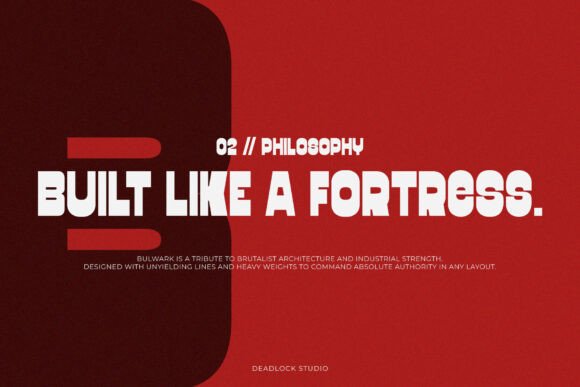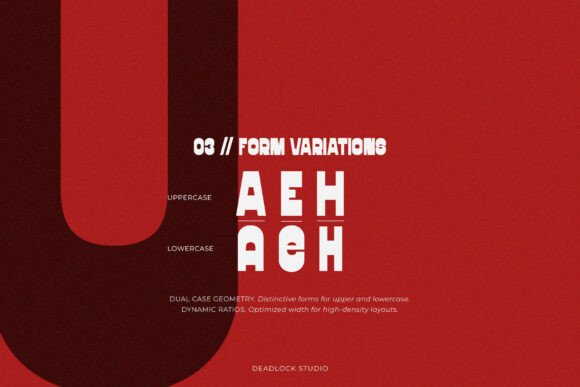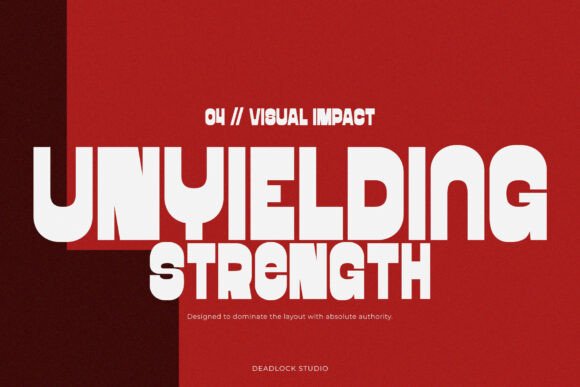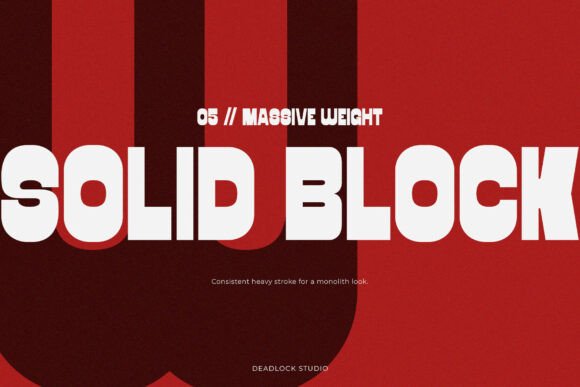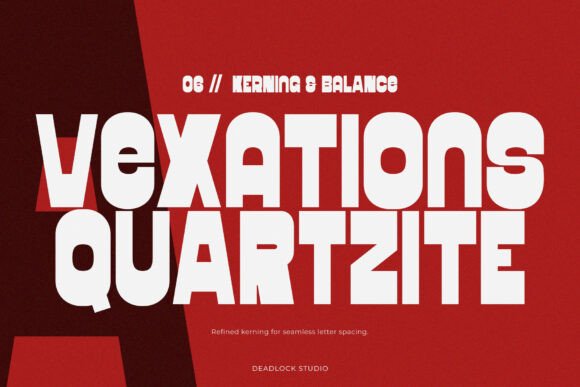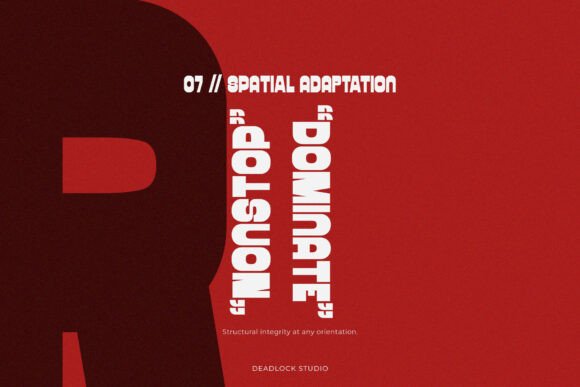
BULWARK Font: A Monolithic Typeface for Maximum Impact
In the world of typography, fonts play a crucial role in conveying messages, evoking emotions, and creating visual identities. For designers and crafters seeking a bold and industrial look, the BULWARK font is an excellent choice. Inspired by brutalist architecture, BULWARK is a monolithic all-caps typeface built for maximum impact. Its solid, unyielding presence makes it perfect for headlines, posters, branding, and industrial signage.
The Inspiration Behind BULWARK
BULWARK’s design is rooted in the brutalist architectural movement, characterized by its use of raw concrete, steel, and glass. This style emphasizes functionality, simplicity, and a sense of ruggedness. The font’s creator aimed to capture the essence of brutalism and translate it into a typographic form that exudes strength and resilience.
Key Features of BULWARK
BULWARK boasts several distinctive features that set it apart from other typefaces:
- Dual Case System: BULWARK offers a unique Dual Case System, where uppercase and lowercase characters have distinct geometric variations. This allows for a dynamic visual rhythm, adding depth and interest to any layout.
- Monolithic Design: The font’s monolithic design ensures a solid, unyielding presence, making it perfect for applications where impact is crucial.
- Industrial Strength: BULWARK’s industrial strength is evident in its bold, rugged appearance, making it suitable for industrial signage, branding, and other applications where a strong visual statement is required.
Ideal Applications for BULWARK
BULWARK’s versatility and impact make it an excellent choice for various design applications:
- Headlines: BULWARK’s bold, attention-grabbing design makes it perfect for headlines, ensuring your message stands out.
- Posters: The font’s industrial strength and visual impact make it an excellent choice for posters, adding a touch of ruggedness and sophistication.
- Branding: BULWARK can help create a strong, memorable brand identity, especially for companies in industrial or manufacturing sectors.
- Industrial Signage: The font’s monolithic design and industrial strength make it an ideal choice for industrial signage, ensuring your message is conveyed clearly and effectively.
BULWARK is a powerful, monolithic typeface designed to make a lasting impact. Its unique Dual Case System, industrial strength, and rugged appearance make it an excellent choice for designers and crafters seeking a bold, attention-grabbing font. Whether you’re working on headlines, posters, branding, or industrial signage, BULWARK is sure to deliver a solid, unyielding presence that commands attention.
In conclusion, BULWARK is a versatile and impactful font that can elevate your designs and help you achieve your creative goals. With its robust features, industrial strength, and rugged charm, BULWARK is an excellent addition to any designer’s toolkit.